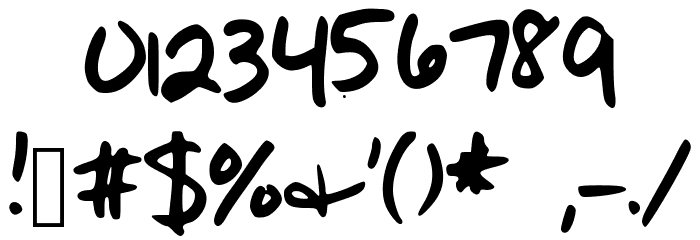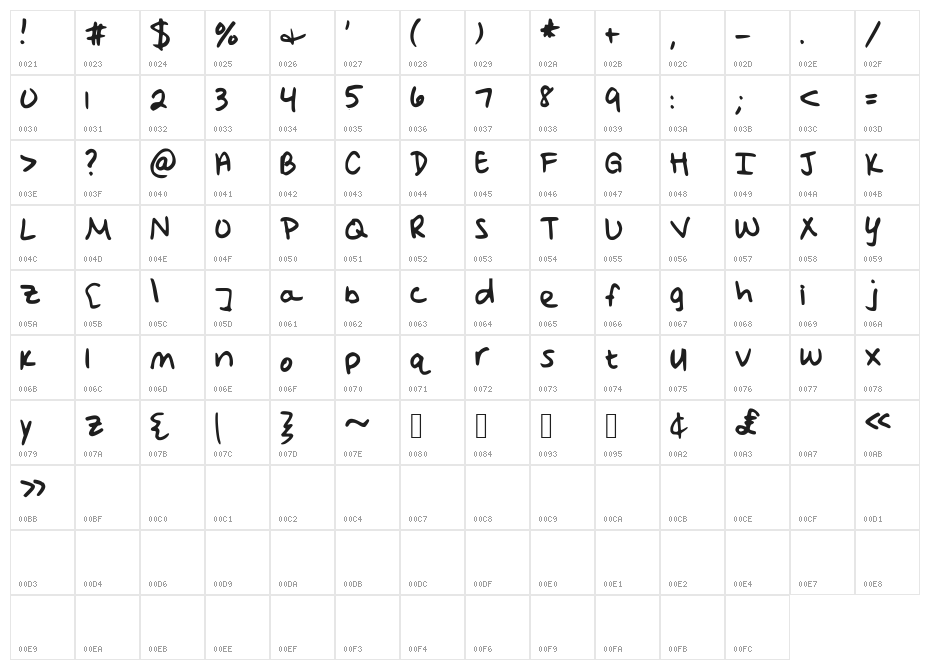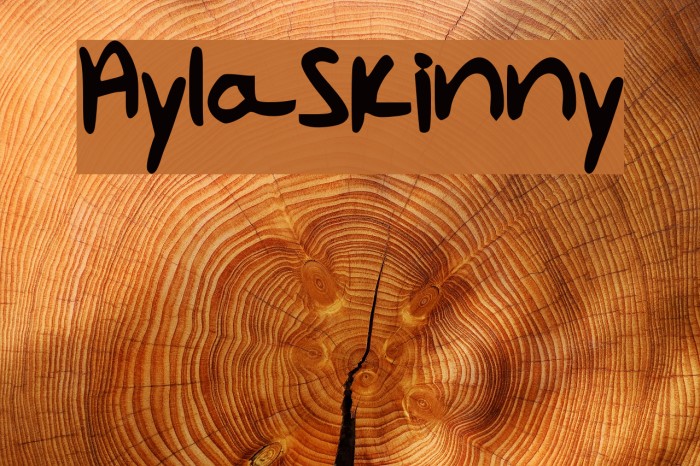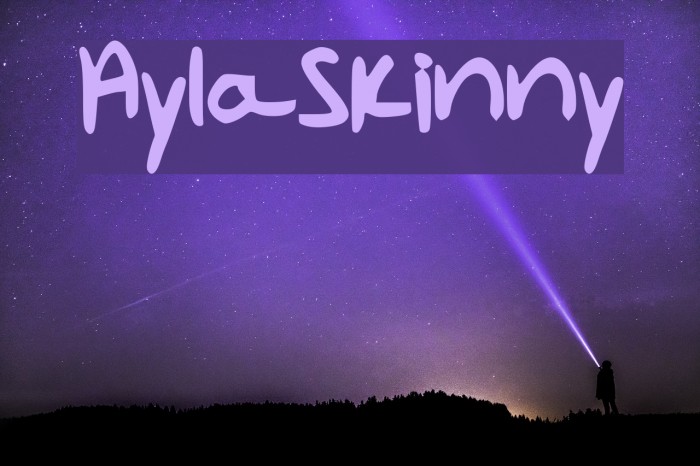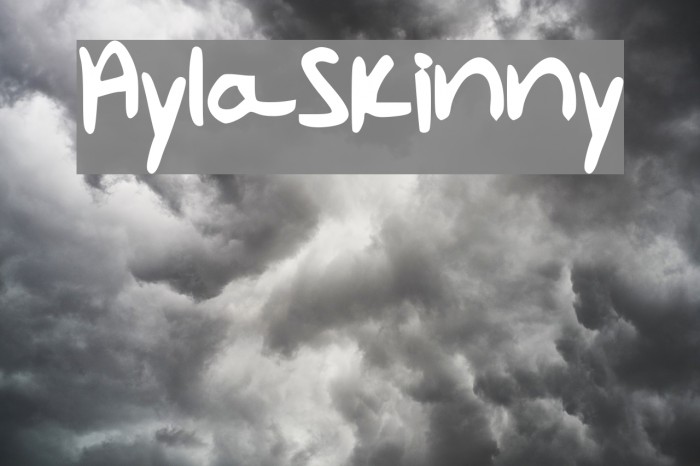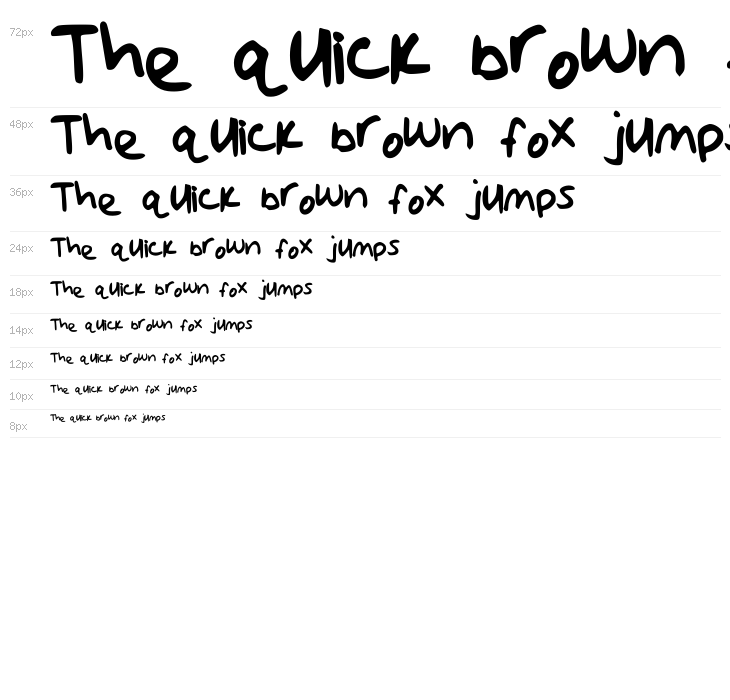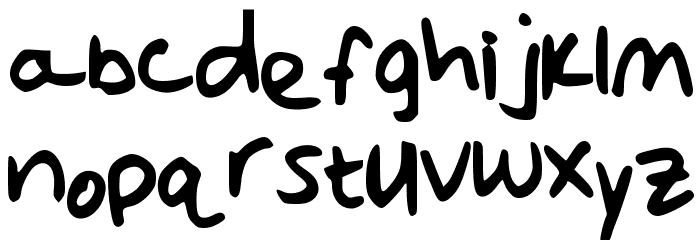
AylaSkinny Font
AylaSkinny Description
This font features a playful and casual handwritten style, characterized by its smooth, rounded edges and slightly irregular letterforms that give it a personal touch. The uppercase and lowercase letters maintain a consistent flow, with a slight slant that adds to its informal appearance. Numbers and special characters are crafted with the same whimsical flair, making them easily readable while retaining the font's unique charm. The overall design is approachable and friendly, suitable for projects that require a human touch.
| Use Case | Headlines, Informal text, Personal projects |
| Proposed Projects | Ideal for greeting cards, children's books, personal blogs, and informal branding. |